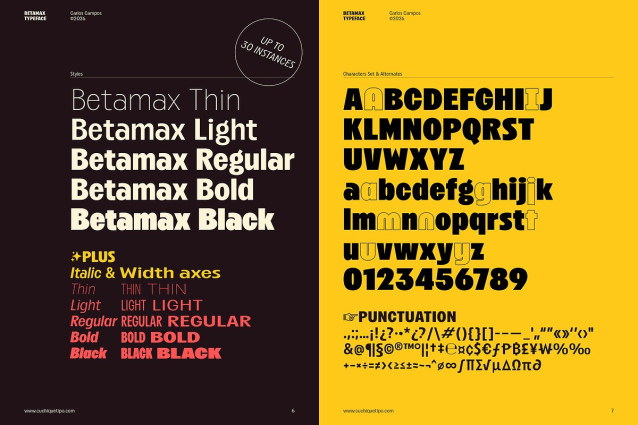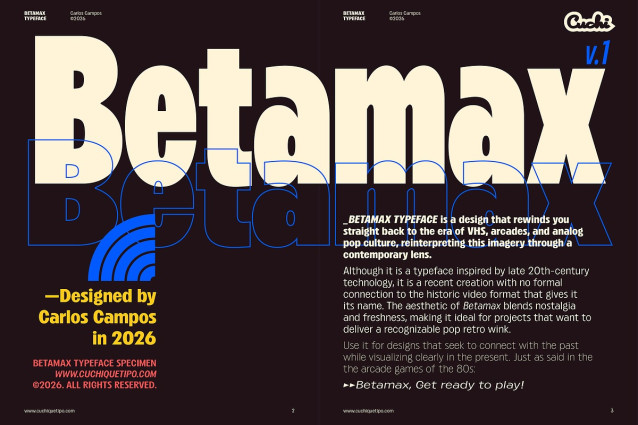
Betamax Font
Betamax Font is a design that rewinds you straight back to the era of VHS, arcades, and analog pop culture, reinterpreting this imagery through a contemporary lens.
Although it is a typeface inspired by late 20th-century technology, it is a recent creation with no formal connection to the historic video format that gives it its name. The aesthetic of Betamax blends nostalgia and freshness, making it ideal for projects that want to deliver a recognizable pop retro wink.